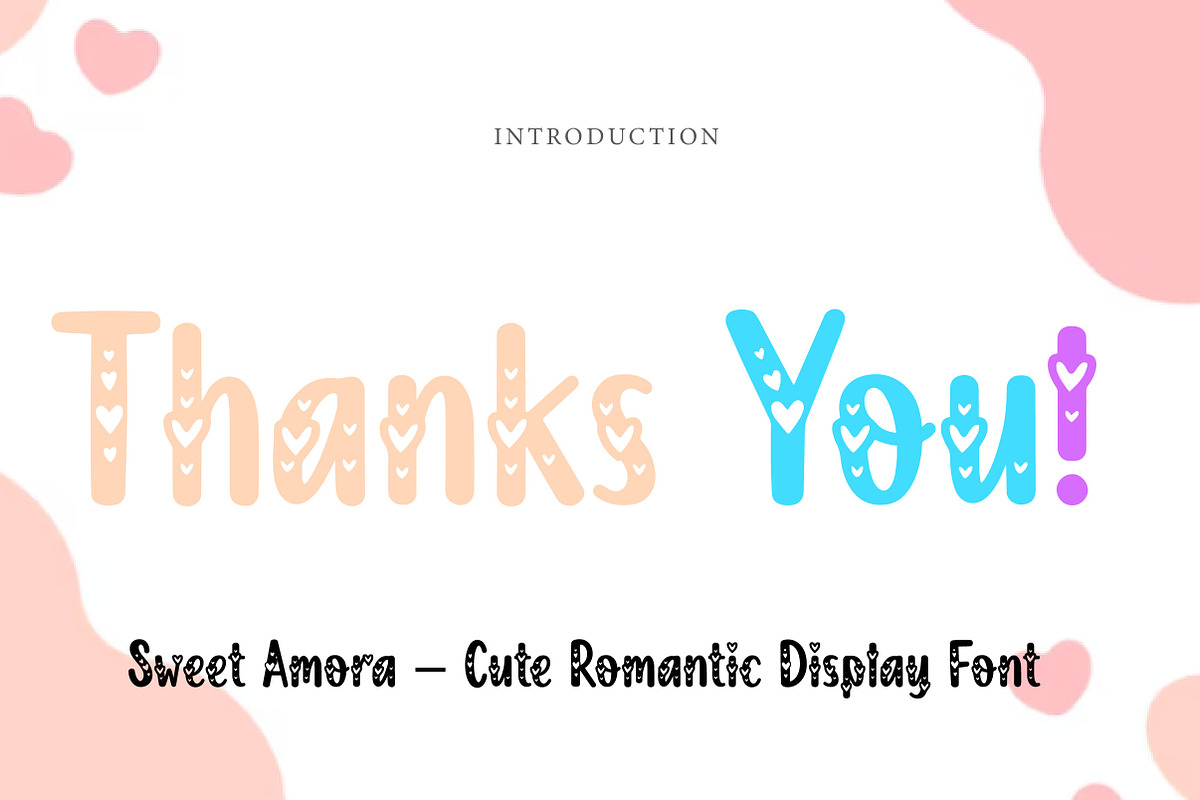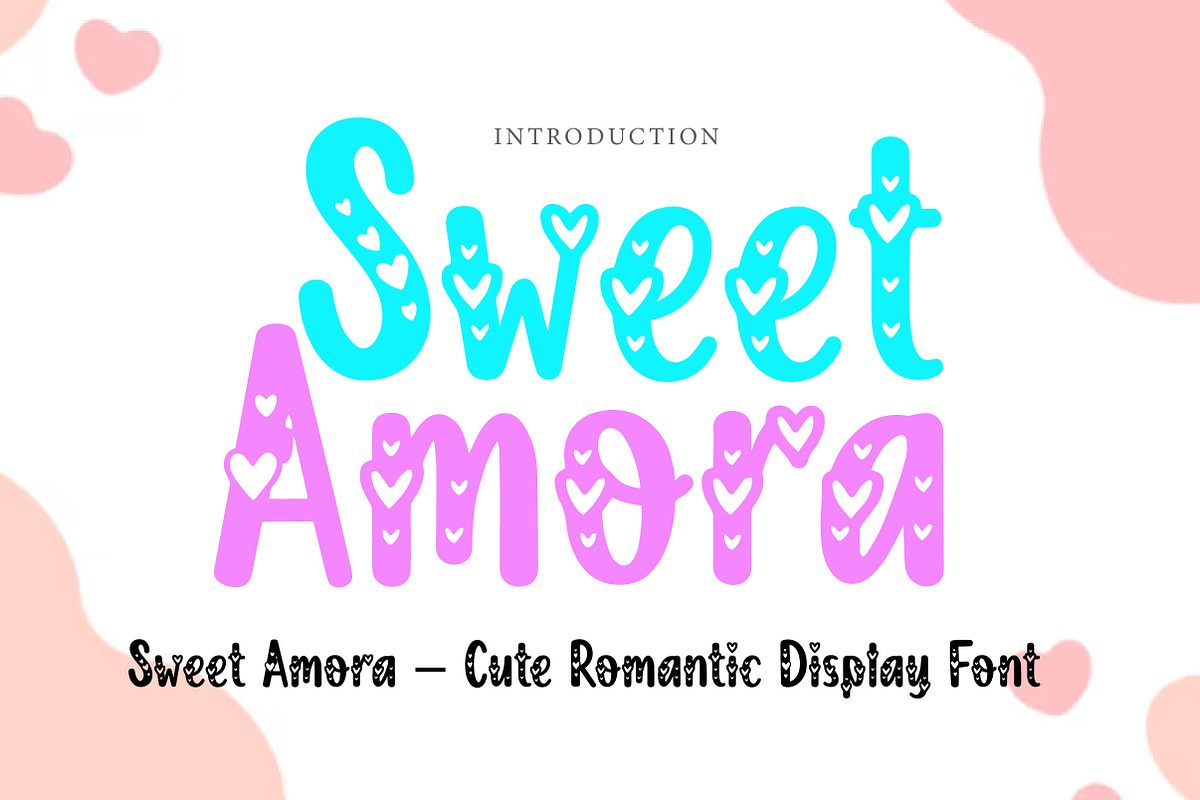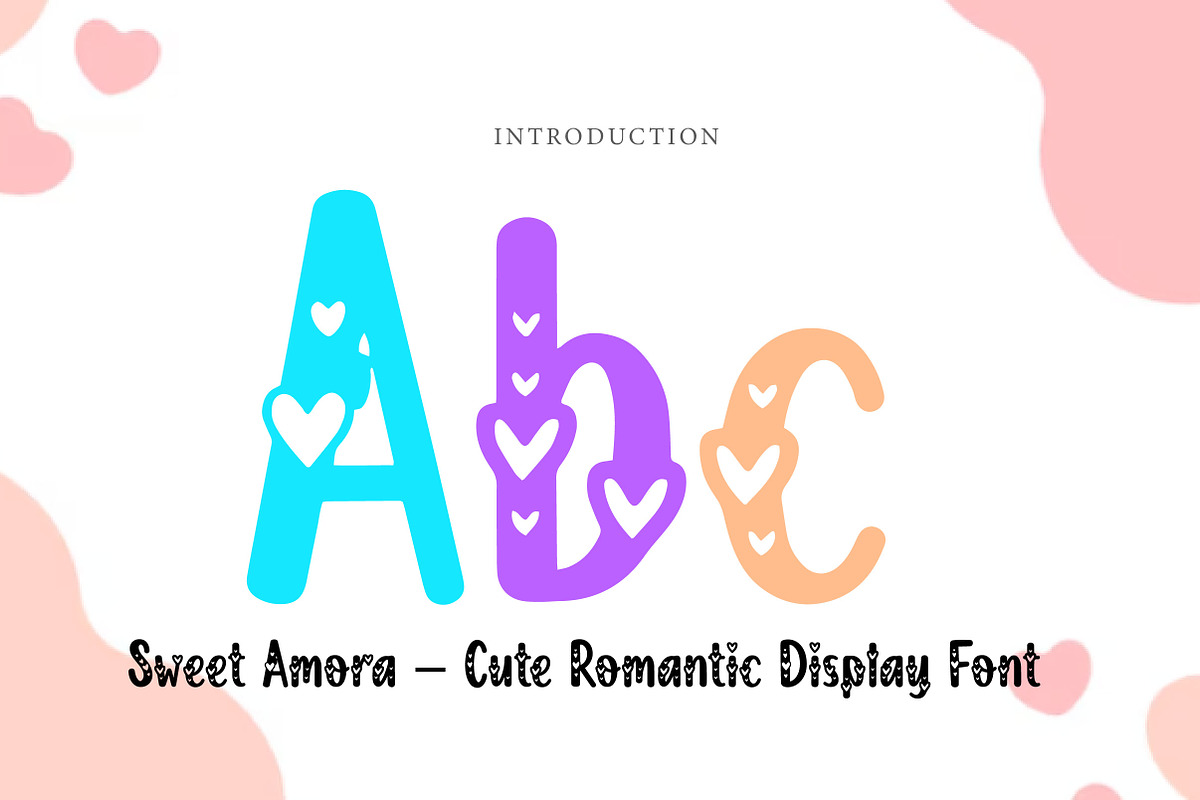
Sweet Amora
Sweet Amora – Cute Romantic Display Font
Sweet Amora is a cute, sweet, and romantic display font with adorable heart details, perfect for Valentine designs, wedding projects, invitations, branding, and lovely creative work.
Sweet Amora is a charming and playful display font designed to fill your designs with sweetness, love, and personality. With its rounded letterforms, soft handwritten feel, and decorative heart accents, this font creates a warm and adorable look that instantly stands out.
Its romantic and cheerful style makes Sweet Amora perfect for projects that need a lovely and expressive touch. Whether you are designing Valentine’s Day cards, wedding invitations, beauty branding, gift packaging, social media posts, stickers, or cute logo concepts, this font helps your typography feel more heartfelt, creative, and memorable.
The decorative heart elements add extra charm and make every word look more unique and emotional. Beautiful for both print and digital projects, Sweet Amora is a wonderful choice for designers who want a font that feels romantic, friendly, and full of love.